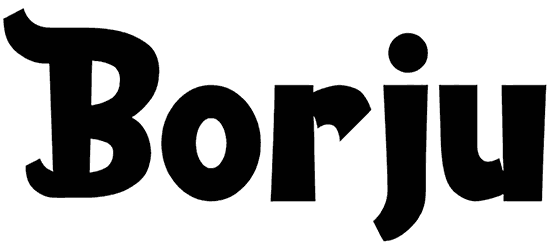
With three styles, the Borju font can be used in highlighting many works centered on freshness. For those looking for a dynamic font, it brings an unusual touch to your design. It tends to be categorized in the Russian font group.
You will find it excellent to use in product packaging, advertisements, events, and invitations. Also, this display font will catch the eyes in designing branding, logos, headlines, and economic magazines to give off a more approachable feel.